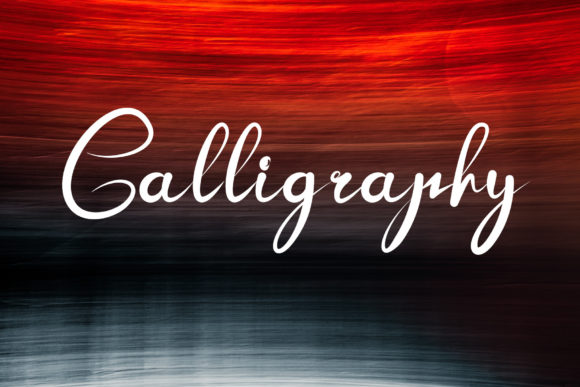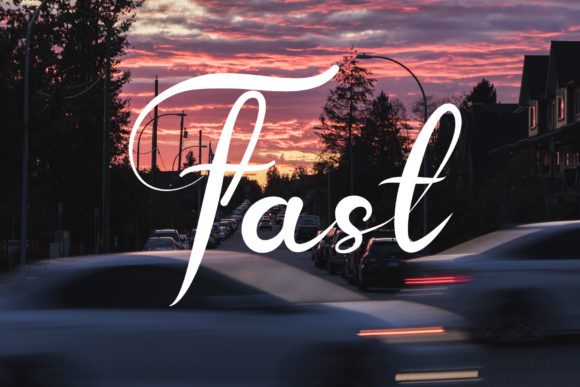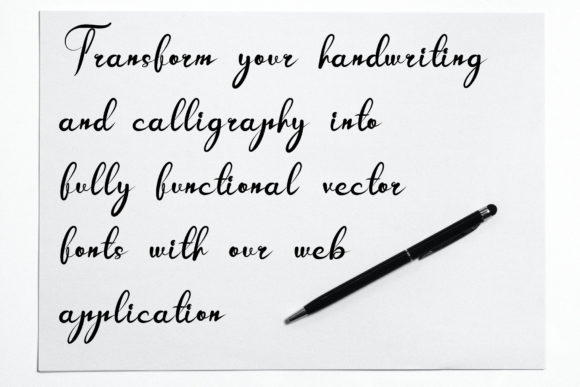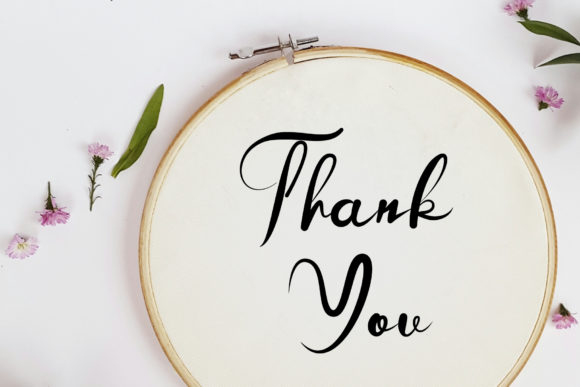
About Delivery Font
Delivery is a chic and trendy handwritten font. It looks beautiful on a variety of designs requiring a personalized style, such as wedding invitations, thank you cards, weddings, greeting cards, logos and so on.